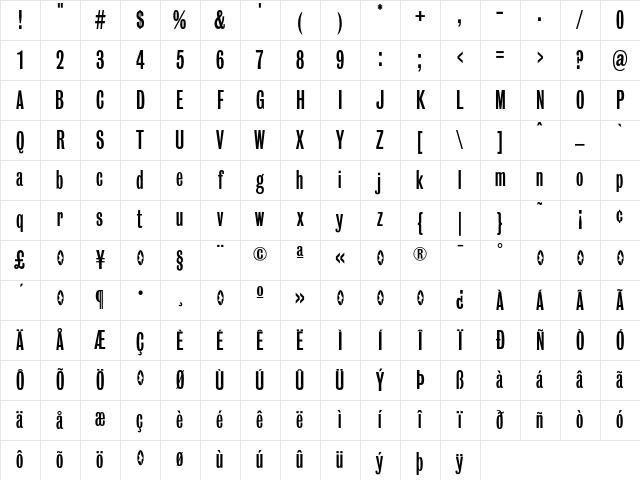
BureauGrotOneThree Regular
Design Context for BureauGrotOneThree
BureauGrotOneThree is a composed and adaptable typeface that performs quietly and consistently across a wide range of design contexts.
Pro Tip: Use BureauGrotOneThree in both headline and body roles to test its range before committing to a single application.